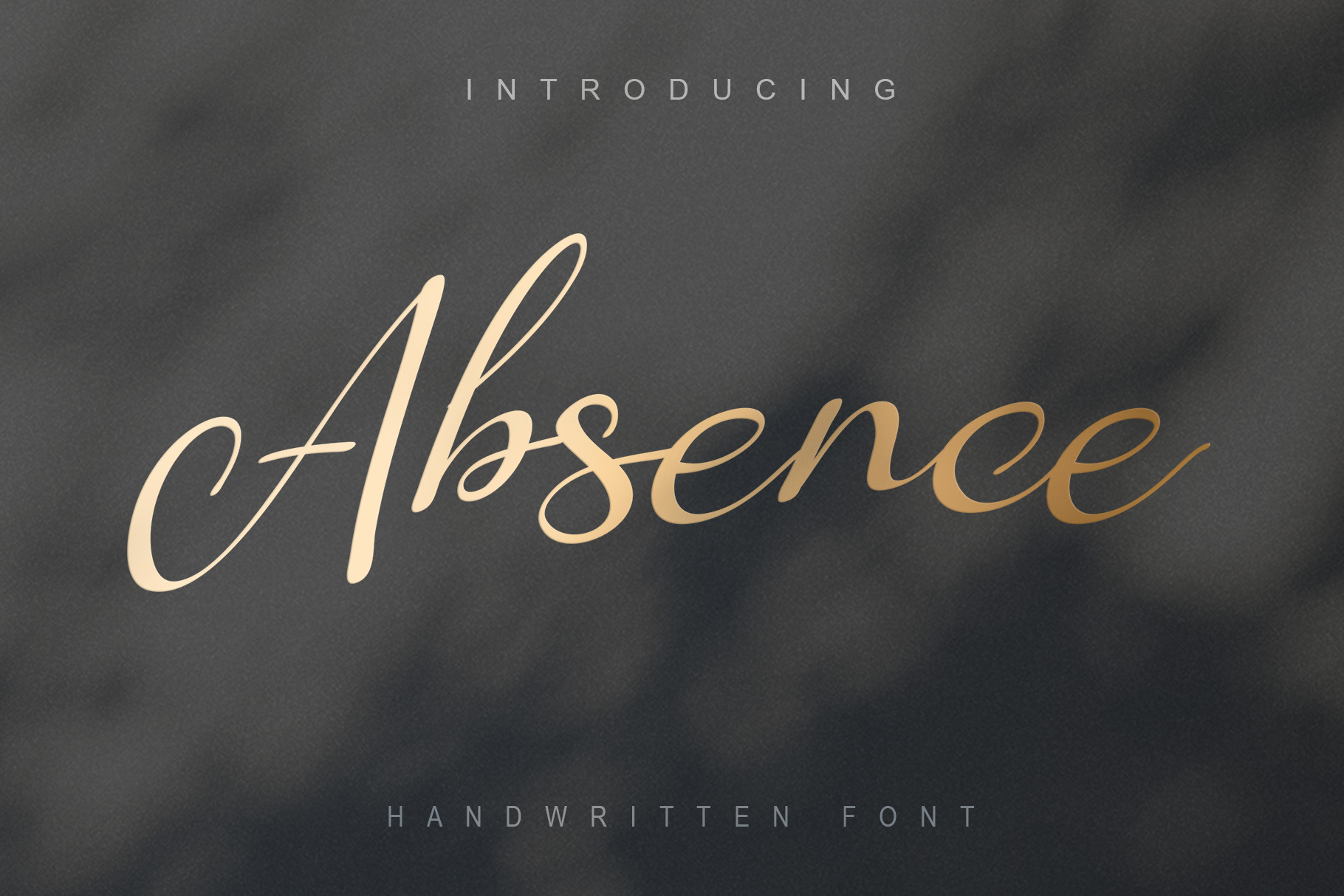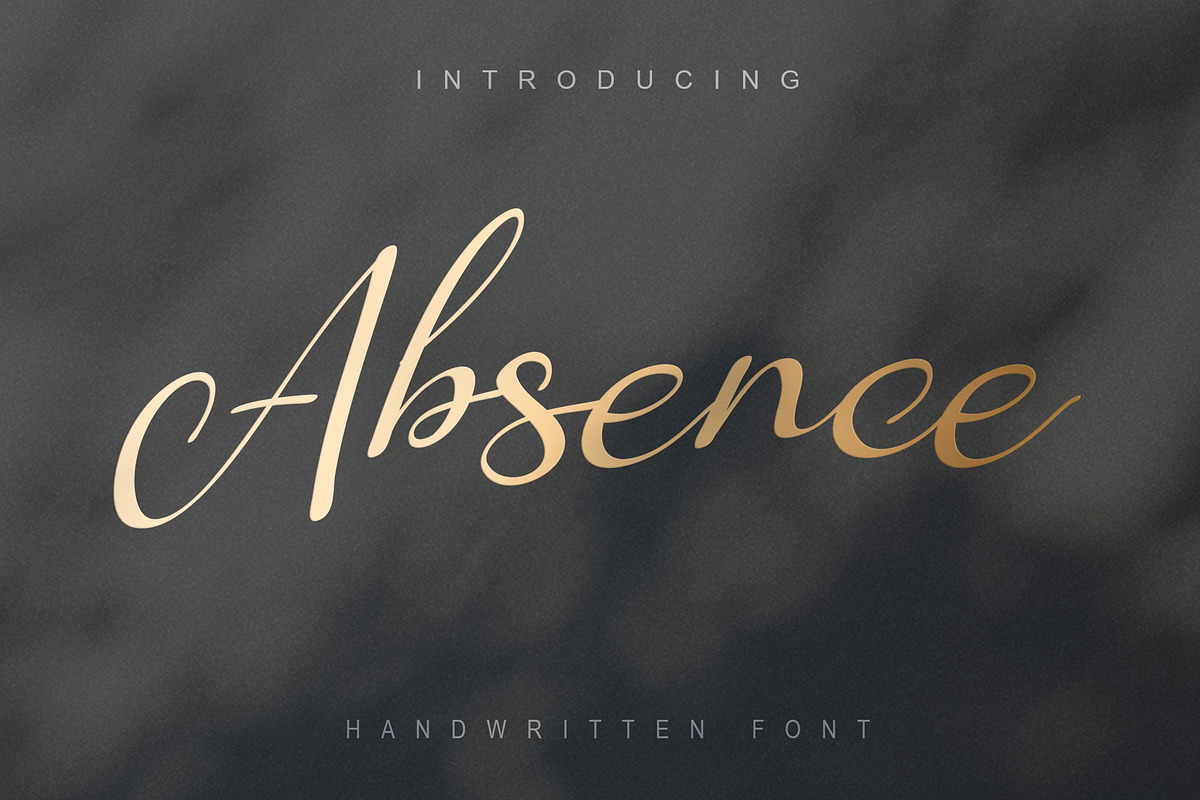
Absense - Hadwritten Font
Introducing Absense- Handwritten Font
This font is great for branding materials, quotes, business cards, headings, blogs, logos, Cricut artwork, posters and more!